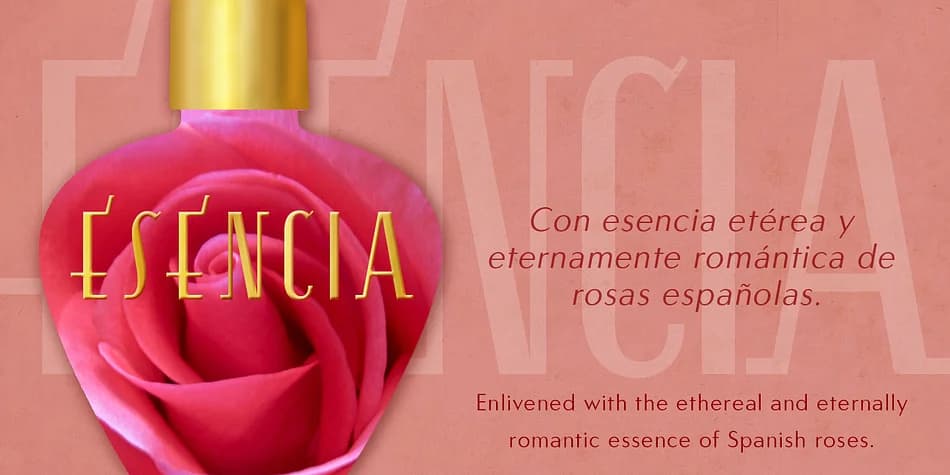
1 / 10About ESENCIA Font
The graceful lines of this typeface channel art deco sophistication from an era when luxury packaging was considered a fine art. ESENCIA by CastleType originated from a 1941 Spanish stock certificate bearing the words "PERFUMES y ESENCIAS" in just eleven letters, each one refined and spare in its execution. Its design captures that period's elegance through slender, carefully proportioned letterforms with a distinctly Spanish character that feels simultaneously historical and entirely contemporary. The narrow proportions make it ideal for refined display work where a touch of vintage dignity enhances the overall visual impact.
This uppercase-only typeface excels for luxury cosmetic and fragrance labels, heritage wine packaging, boutique perfume branding, and vintage-styled invitation suites. Alternates for B, D, E, F, K, P, R, and S provide subtle visual variation across display headlines without requiring you to layer multiple fonts. Support for most European languages using Latin, Greek, or Cyrillic alphabets means the elegant aesthetic translates across international branding applications. Numerals and punctuation are included, creating a complete toolkit for logo design and sophisticated branding work.
ESENCIA Font is a decorative font that shines as a display or heading face. Pair it with a clean sans-serif or serif font for body text β the contrast creates a clear hierarchy while the two styles stay balanced and easy to read.
ESENCIA Font
by CastleType